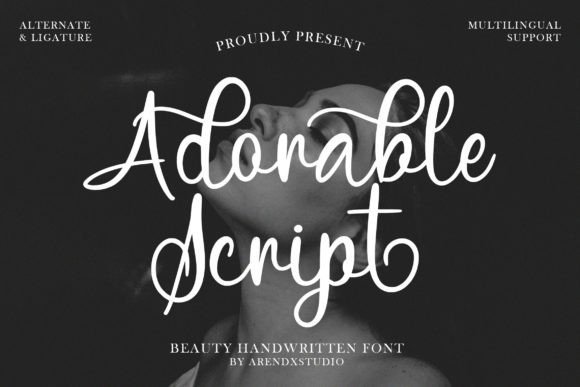
Discover the Whimsy of Adorable Script Font
Have you ever been browsing through a beautiful wedding invitation or a charming product label, and suddenly you’re stopped in your tracks by the perfect handwritten touch? That’s exactly what happens when you use the Adorable Script Font in your design projects. This distinctive handwritten font is specifically crafted to add a personal, human touch to your branding, logos, and marketing materials.
As a designer, you know the importance of standing out in a crowded market. The Adorable Script Font offers a unique way to convey your brand’s personality and values through its beautiful, flowing characters. Whether you’re working on a wedding design, a product packaging, or a social media post, this font is the perfect tool to help you connect with your audience on a deeper level.
Key Features of Adorable Script Font
- Unique Characteristics: Hand-drawn, cursive script with swashes and flourishes, ideal for creating a personal and whimsical feel
Designer Review: Adorable Script Font
As a designer, I was excited to try out the Adorable Script Font. Here’s my honest review:
- The font is incredibly charming and has a unique touch to it. It’s perfect for adding a personal touch to invitations, social media posts, or even branding materials.
- The font is highly customizable, allowing you to adjust the size, color, and spacing to fit your design needs.
- The font is also quite legible, making it suitable for longer blocks of text.
- The font may be too playful for formal or professional designs. It’s best suited for more casual or creative projects.
- The font may not be ideal for small text sizes, as the letters can become quite delicate and hard to read.
- The font is not as versatile as some other script fonts, so it may not work well in every design scenario.
I think the Adorable Script Font is a great addition to any designer’s toolkit. While it has some limitations, its unique charm and versatility make it a great choice for the right projects. If you’re looking for a font that adds a personal touch to your designs, this might be the perfect choice. Just be sure to use it in the right context!
Practical Application Guide: Adorable Script Font
For best results, use Adorable Script Font for titles, headings, and quotes.
It’s perfect for creating a whimsical and playful atmosphere in your designs.
Experiment with different font sizes and styles to add depth and interest to your text.
Alternatives to Adorable Script Font
Ostrich Sans is a modern, cursive script font that is perfect for creating a friendly and approachable feel in your designs. It’s ideal for use in branding, advertising, and editorial content. Compared to Adorable Script Font, Ostrich Sans has a more geometric and contemporary look, making it suitable for modern and tech-savvy audiences.
Great Vibes is a beautiful, elegant script font that exudes sophistication and refinement. It’s perfect for use in high-end branding, luxury packaging, and special occasion invitations. Unlike Adorable Script Font, Great Vibes has a more refined and classic look, making it suitable for traditional and formal designs.
Carolyna Pro is a beautiful, handwritten script font that is perfect for creating a personal and emotive feel in your designs. It’s ideal for use in storytelling, journaling, and editorial content. Compared to Adorable Script Font, Carolyna Pro has a more whimsical and organic look, making it suitable for creative and artistic audiences.
Alex Brush is a elegant, handwritten script font that is perfect for creating a sophisticated and refined feel in your designs. It’s ideal for use in branding, advertising, and editorial content. Unlike Adorable Script Font, Alex Brush has a more classic and timeless look, making it suitable for traditional and formal designs.